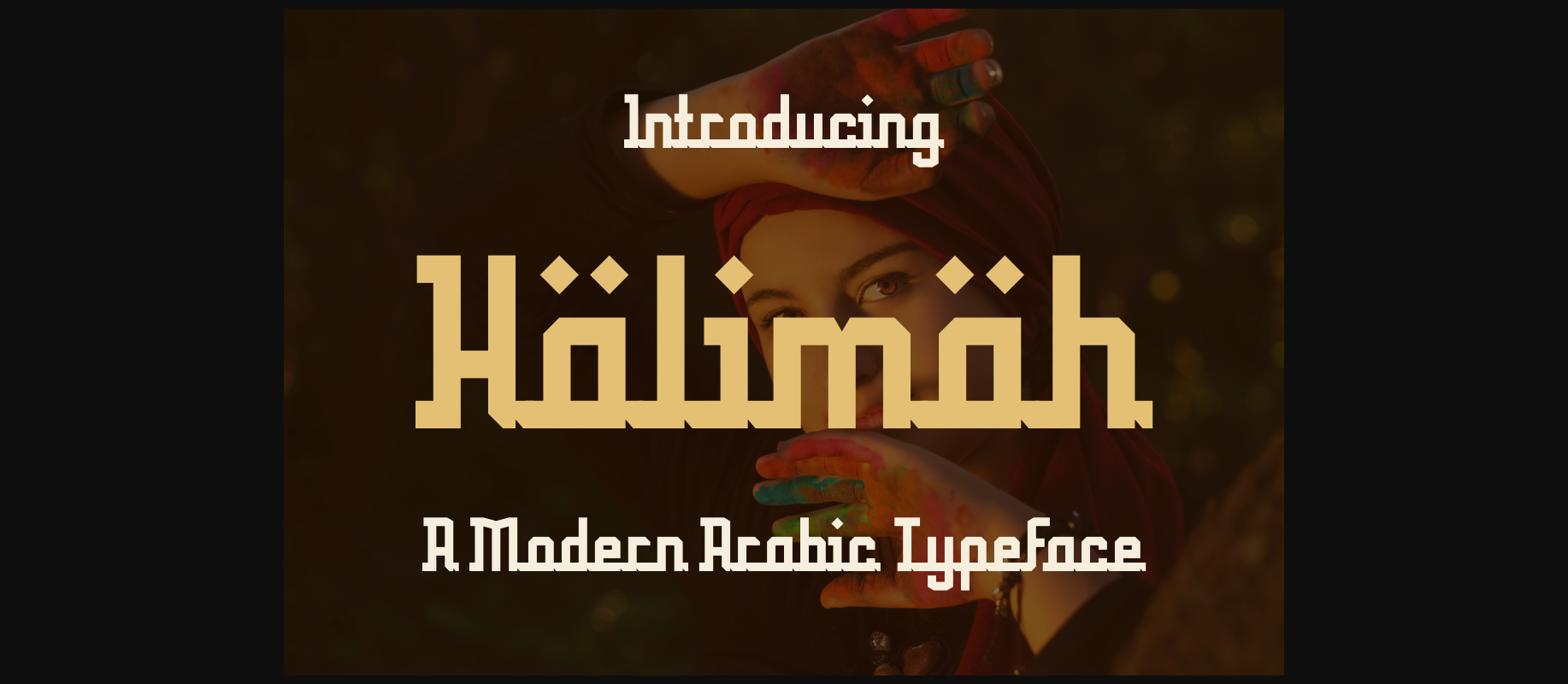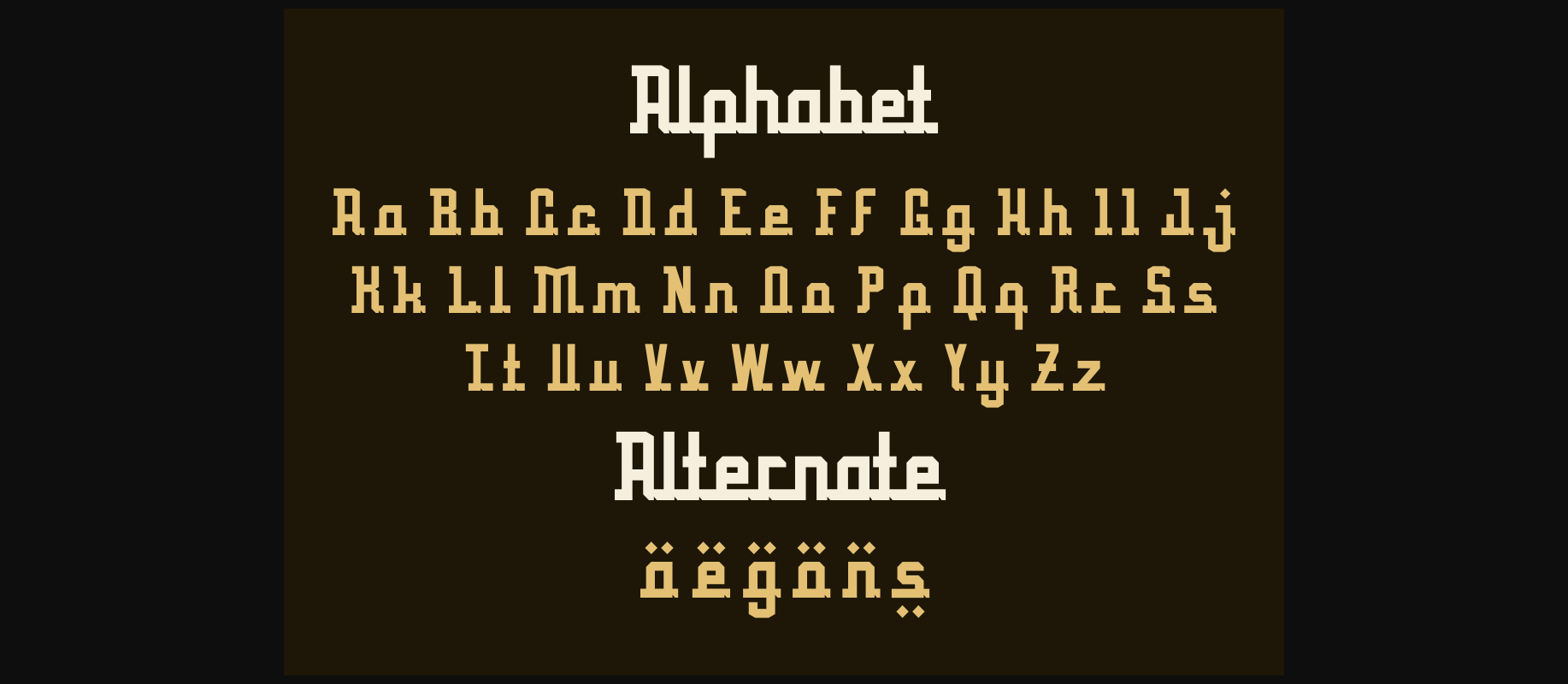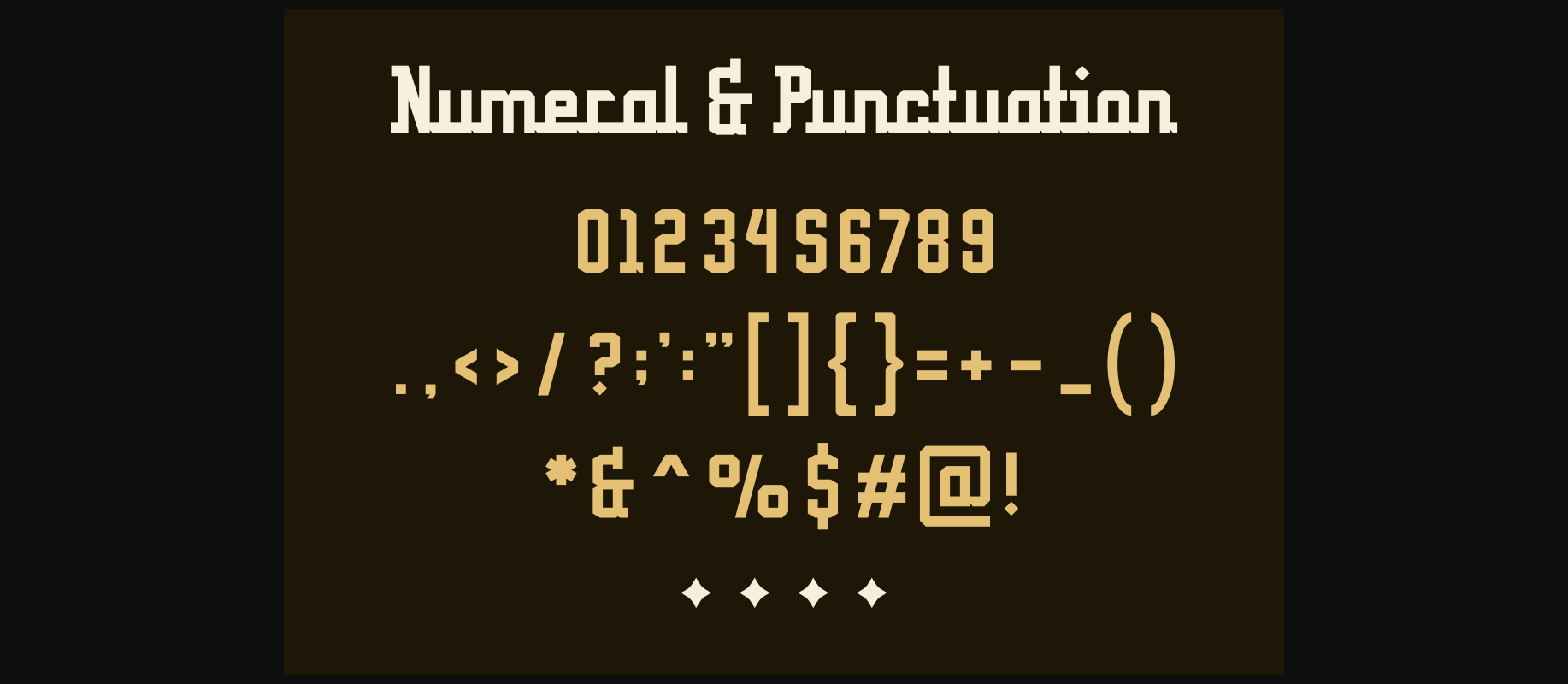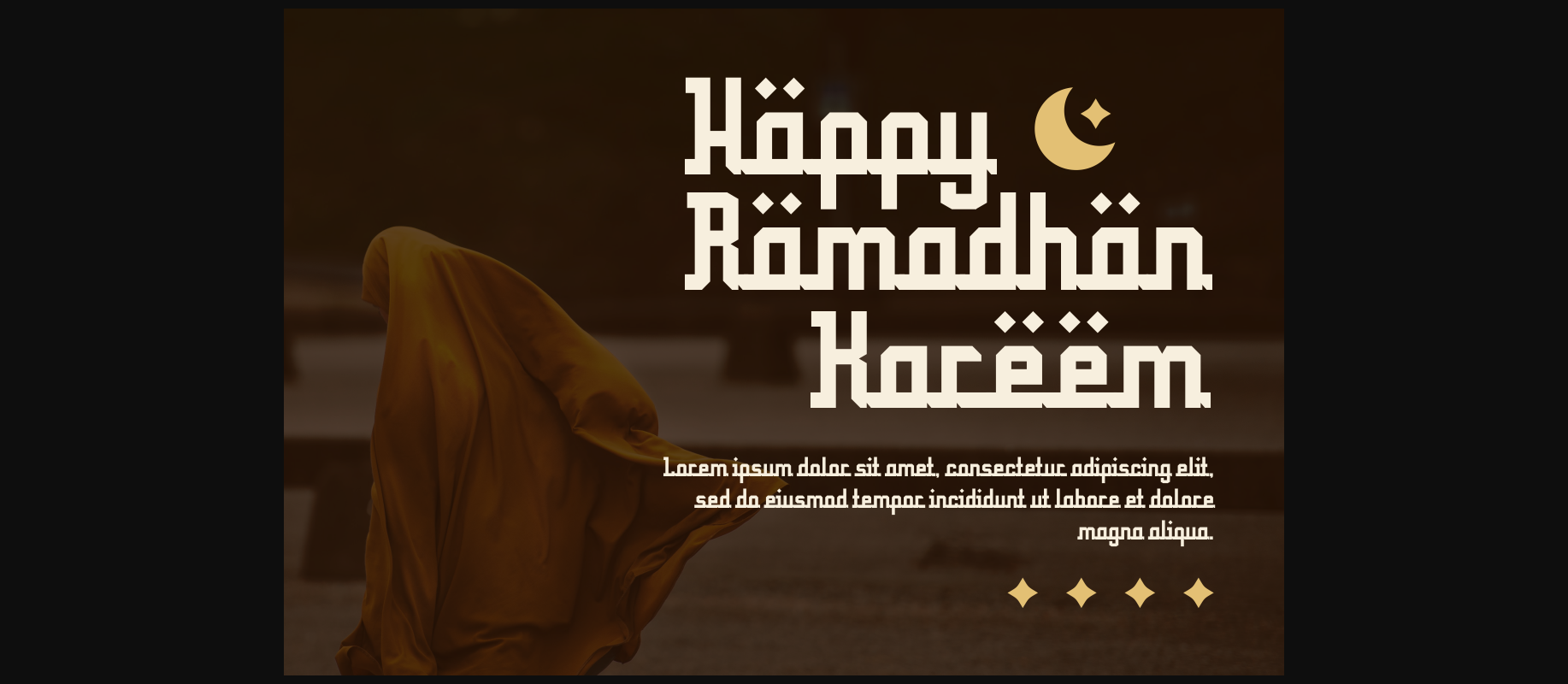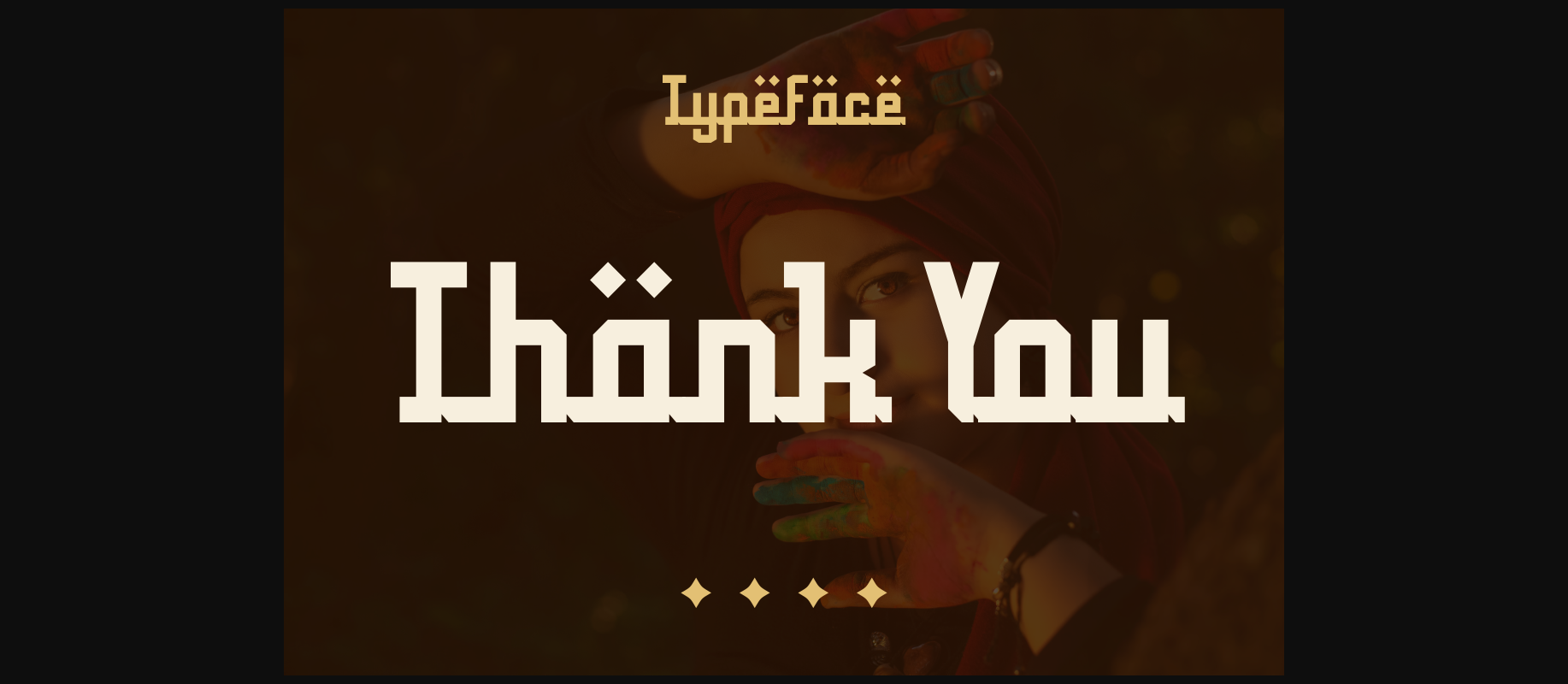
About Halimah Font
Halimah is a bold and authentic display font. The font is suitable for any branding project like logo, t-shirt printing, product, and many more. outstanding in a wide range of contexts.